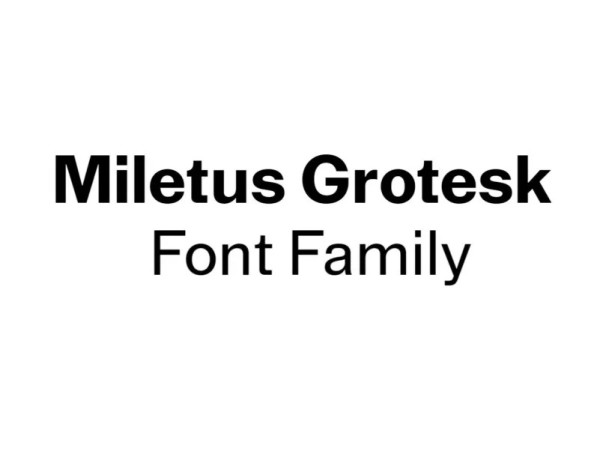
Miletus Grotesk Font
Miletus Grotesk Font is a contemporary neo-grotesque sans-serif font family that gets more vigorous as its weight increases. It has a dependable and uncompromising style, with controlled letterforms and modern touches. It looks amazing in logos, magazines, and movies. Cottorway Font would be perfect for branding, headlines, Captions, paragraphs, and posters. The various weights allow you to experiment with a wide range of applications. It’s created to make an impression without sacrificing its beauty and readability. It’s shown a clean, minimalist, warmth, quirky, yet still purposed to be versatile